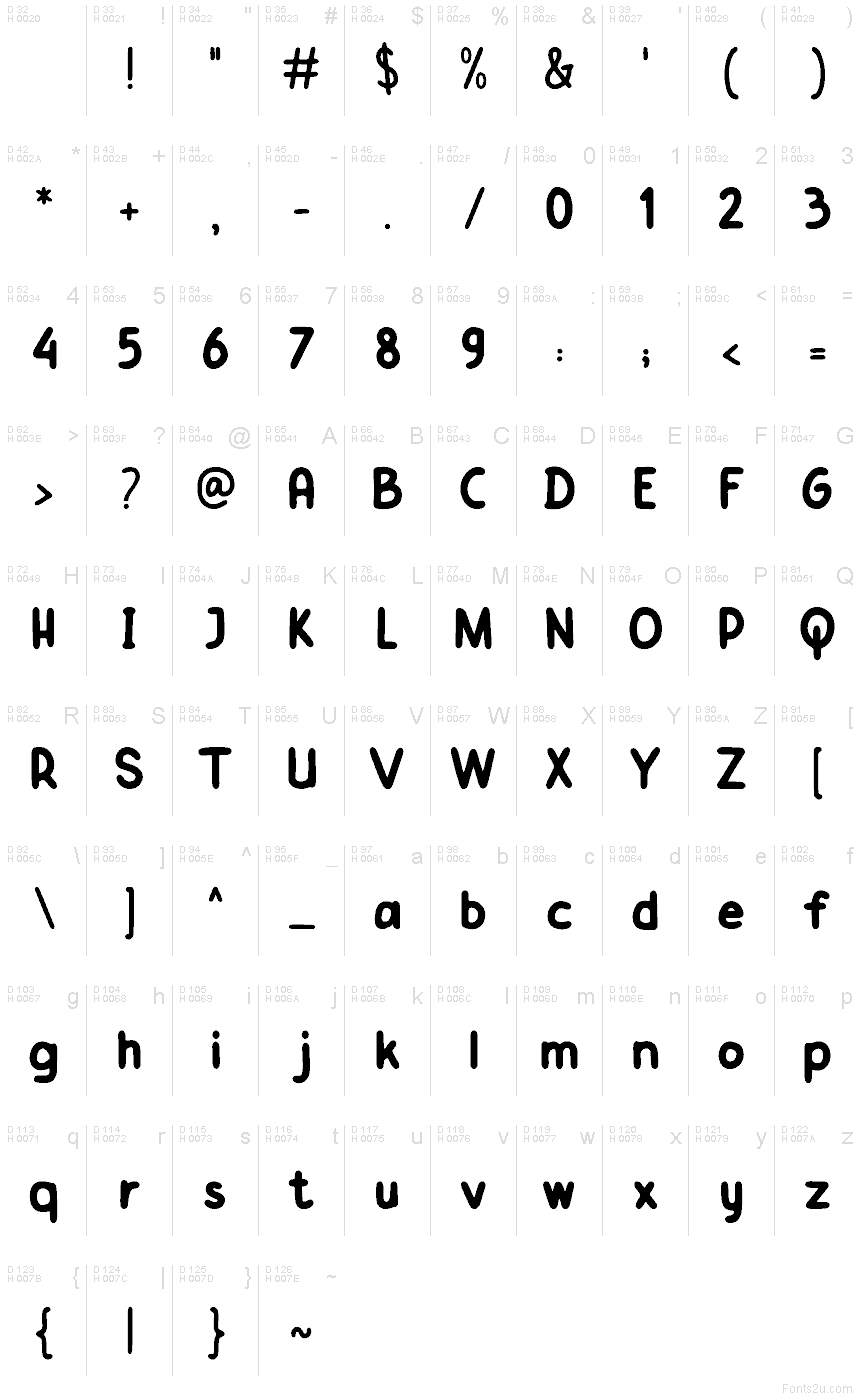
Antara Boxing Demo
Antara Boxing font by Studio Hello Good is a bold brush typeface that combines casual elements with a modern aesthetic. Rounded strokes make the characters legible and friendly, which sets an approachable mood meant to put audiences at ease. Spontaneous, yet well-balanced, this free handwritten font inspires designers to use it in playful and semiformal projects.
Some of the design applications suitable for Antara Boxing include packaging, product labels, book covers, posters, professor badges, magazines’ titles. Other use cases include business cards, position descriptions on a CV template or portfolio of illustrations/paintings. Related web design options can be page headers for fashion websites and garments stores.